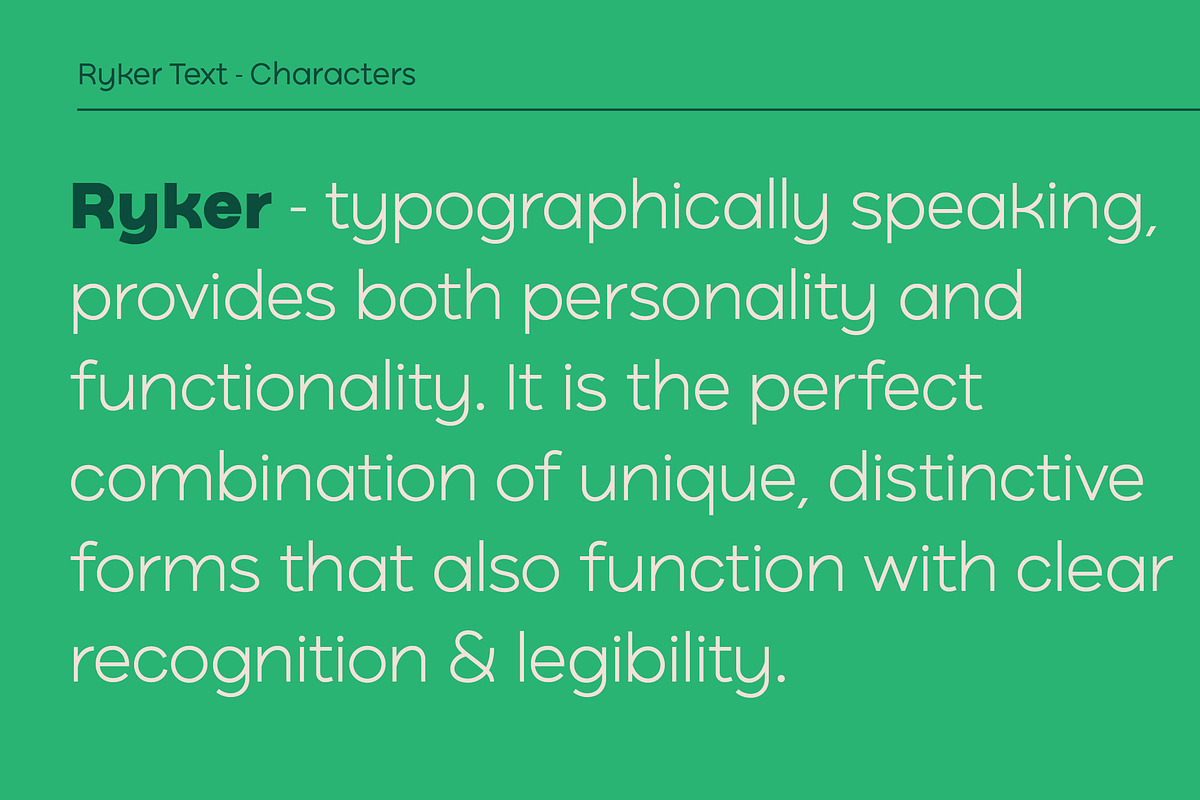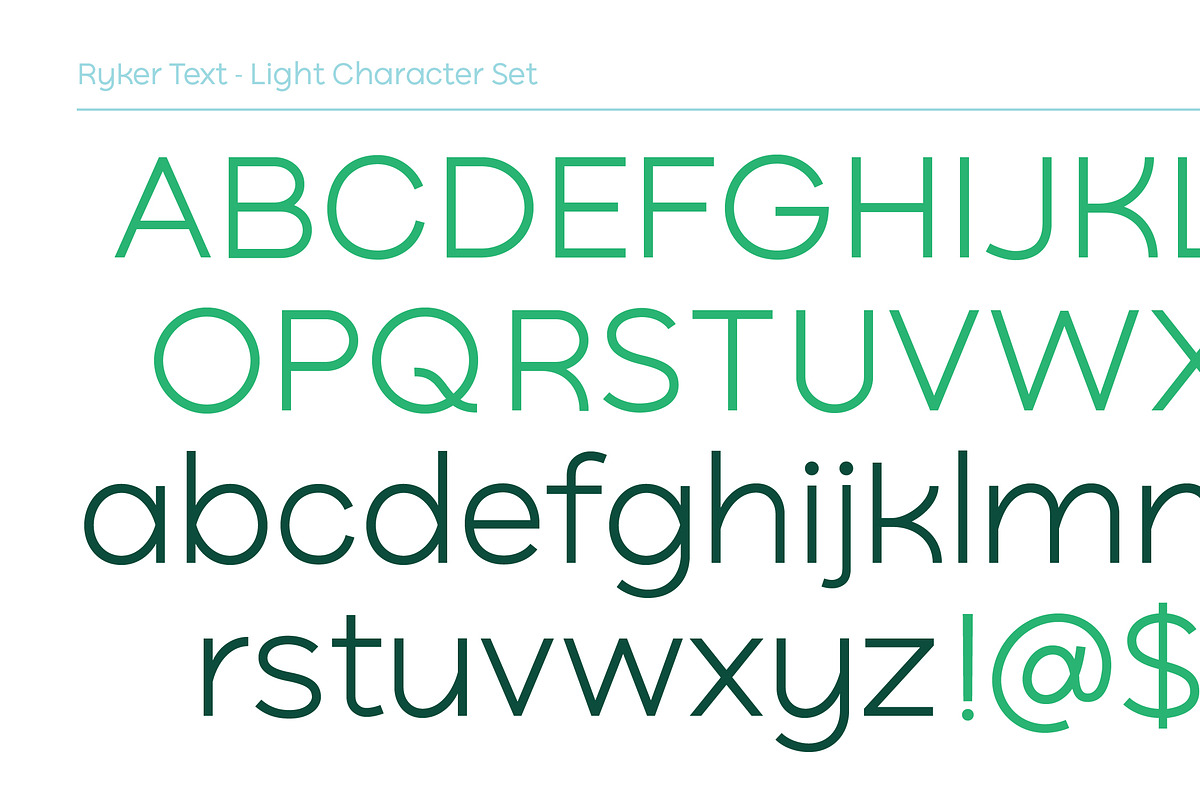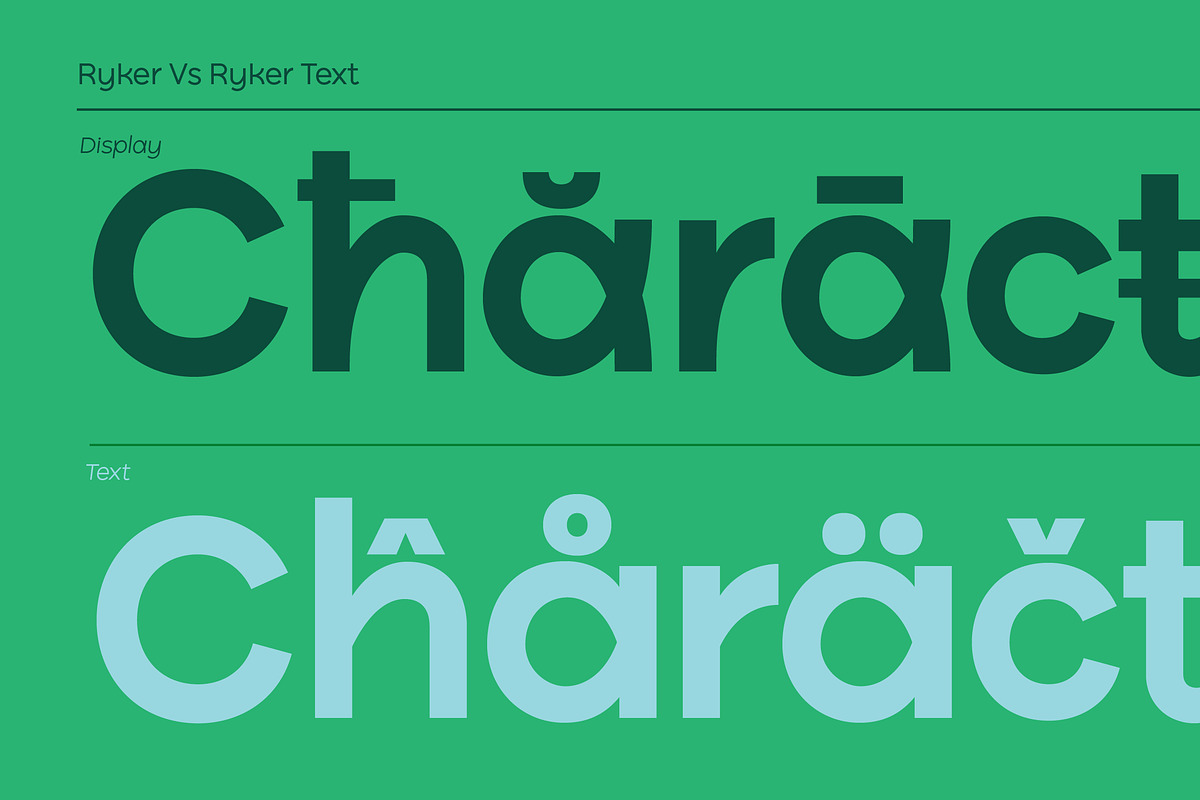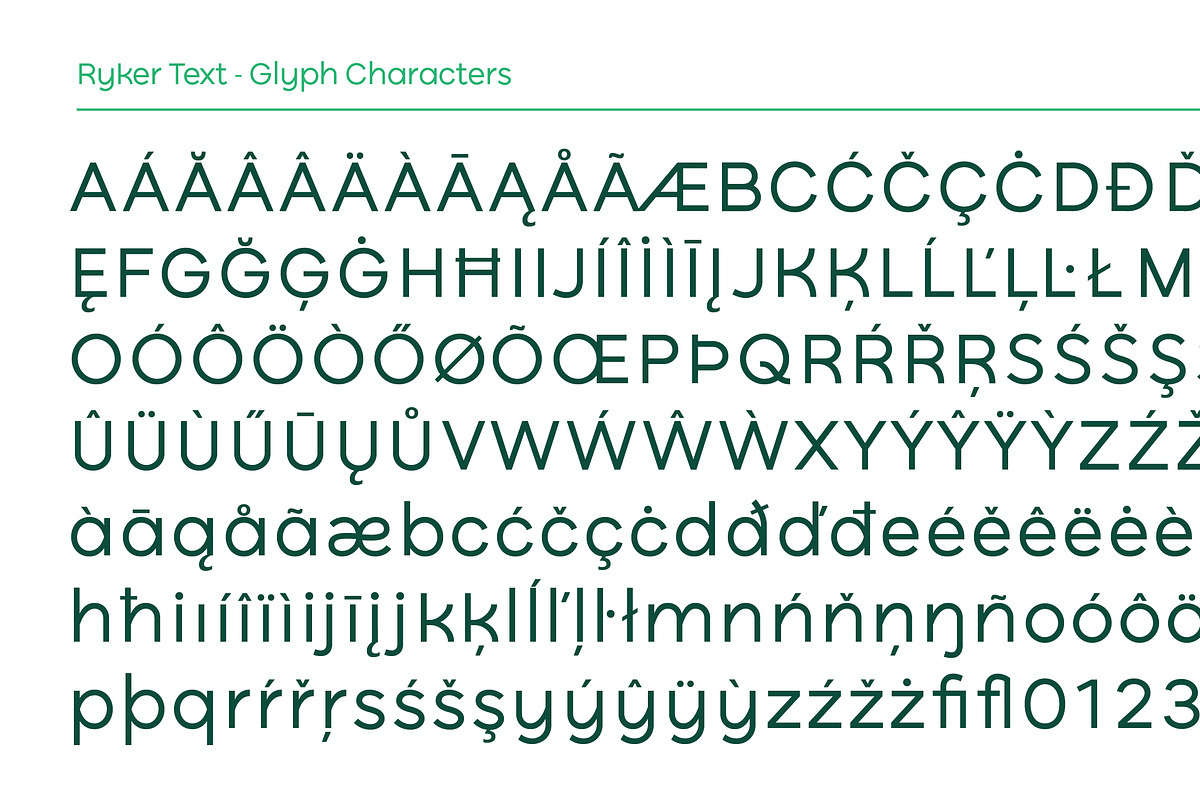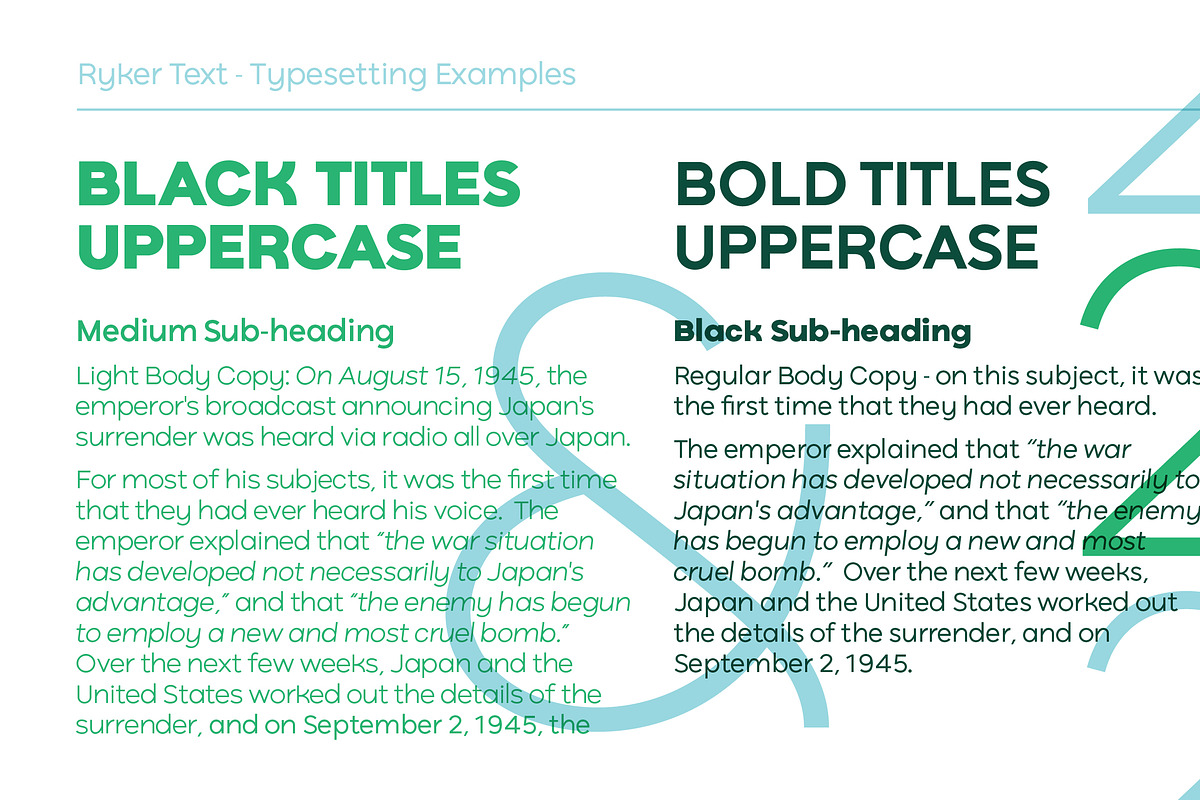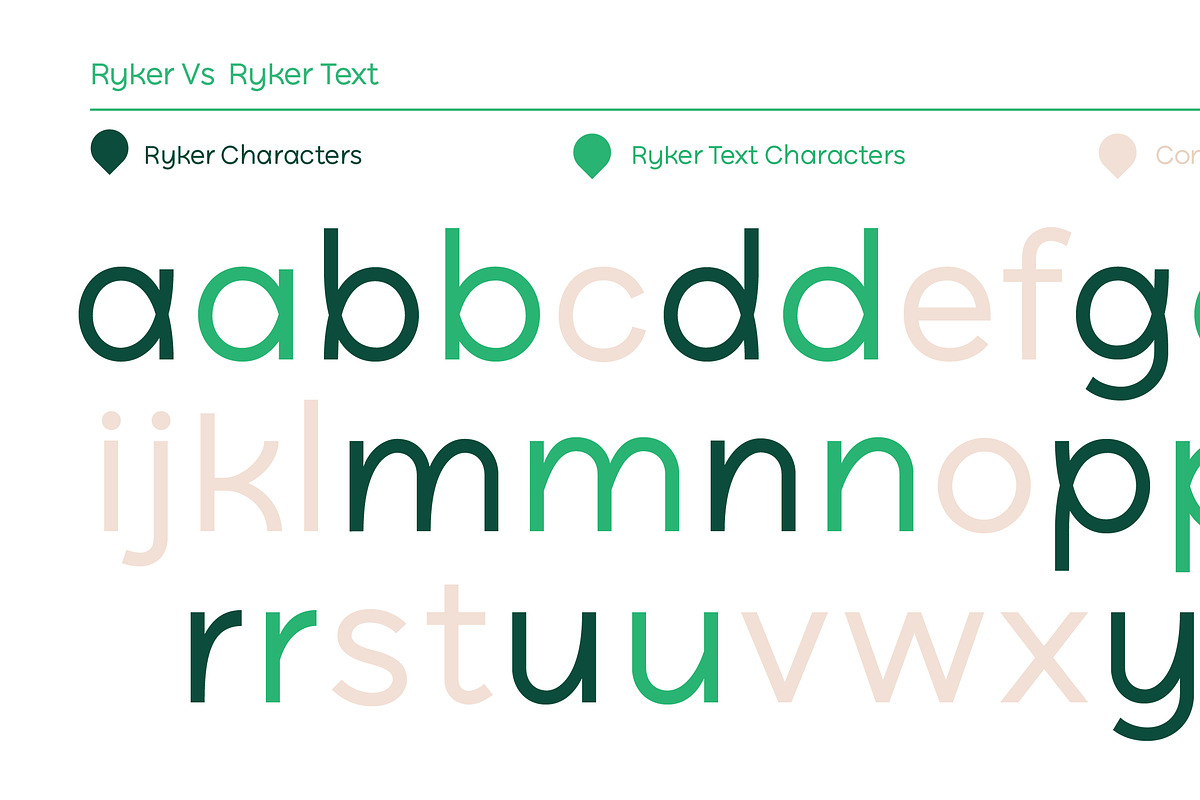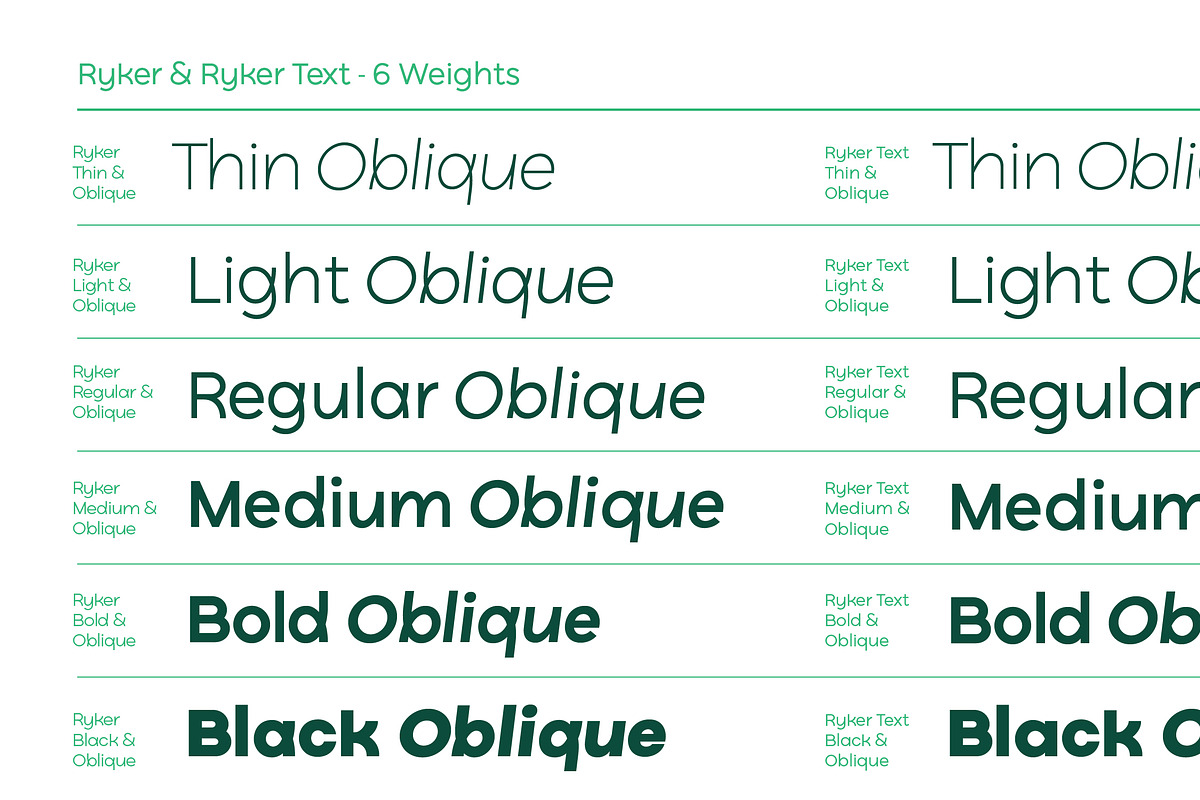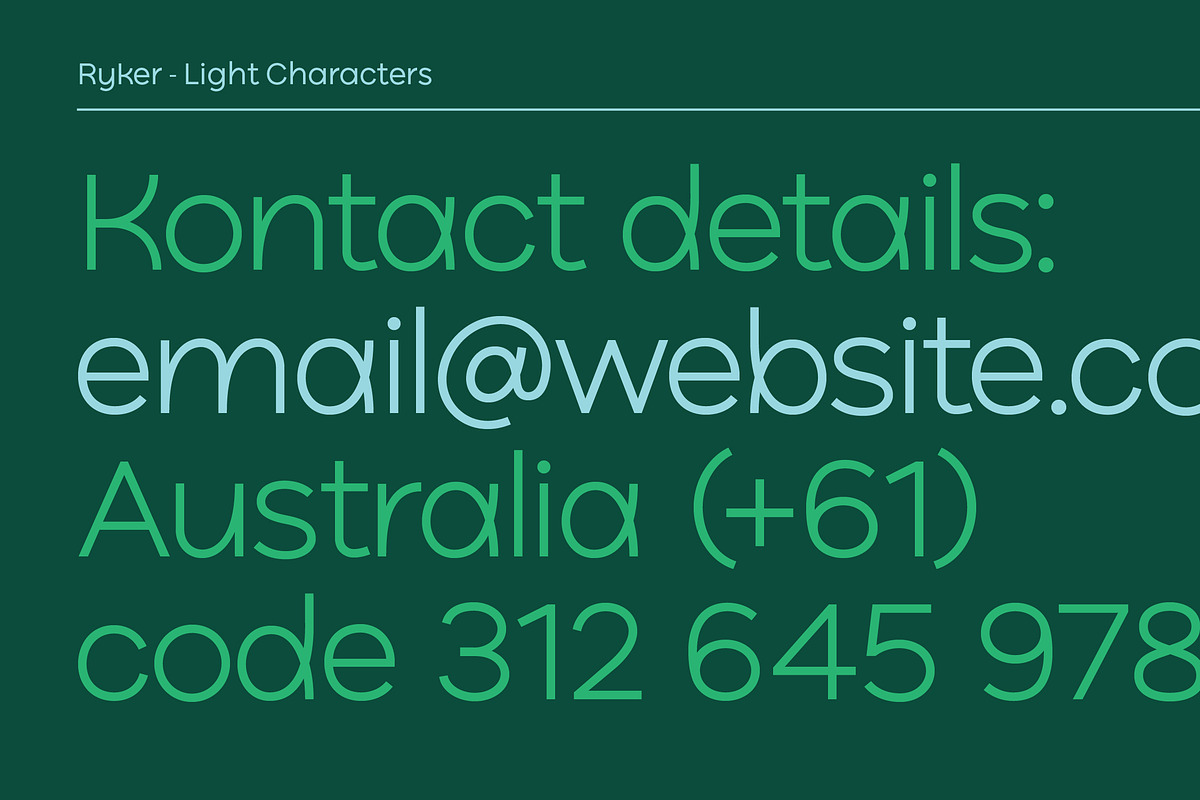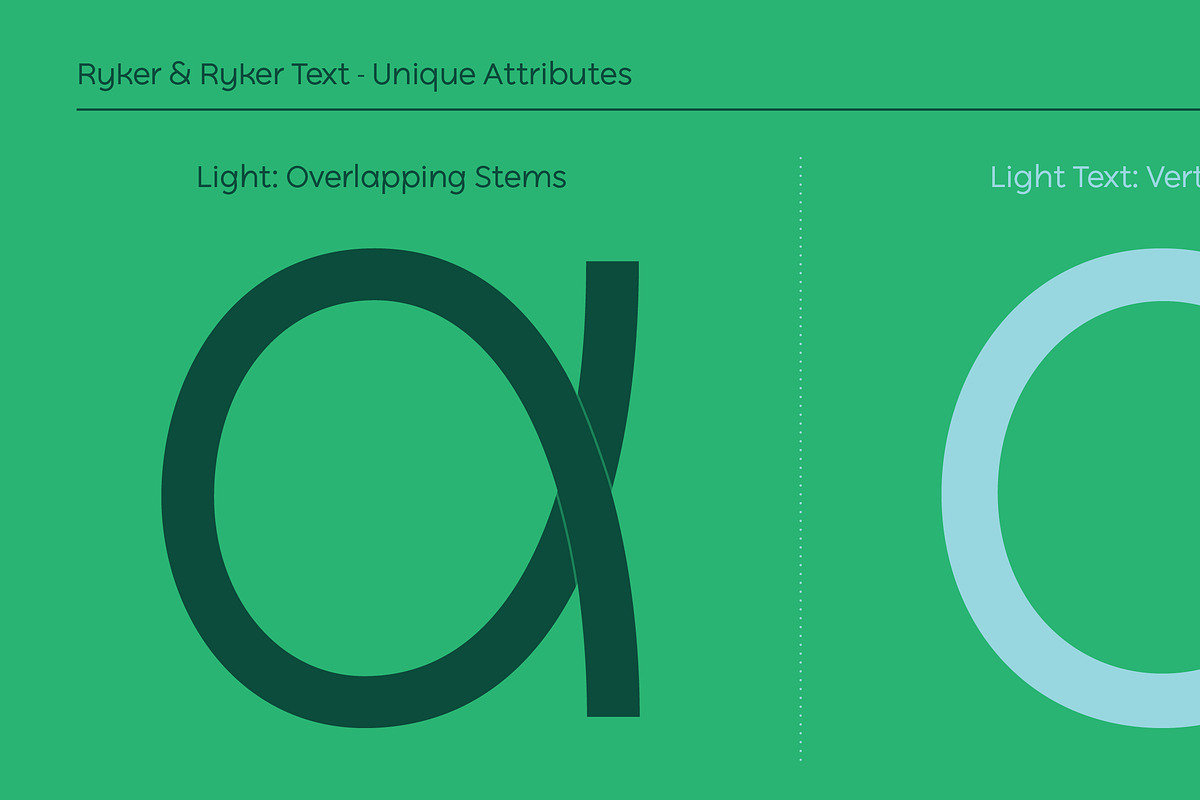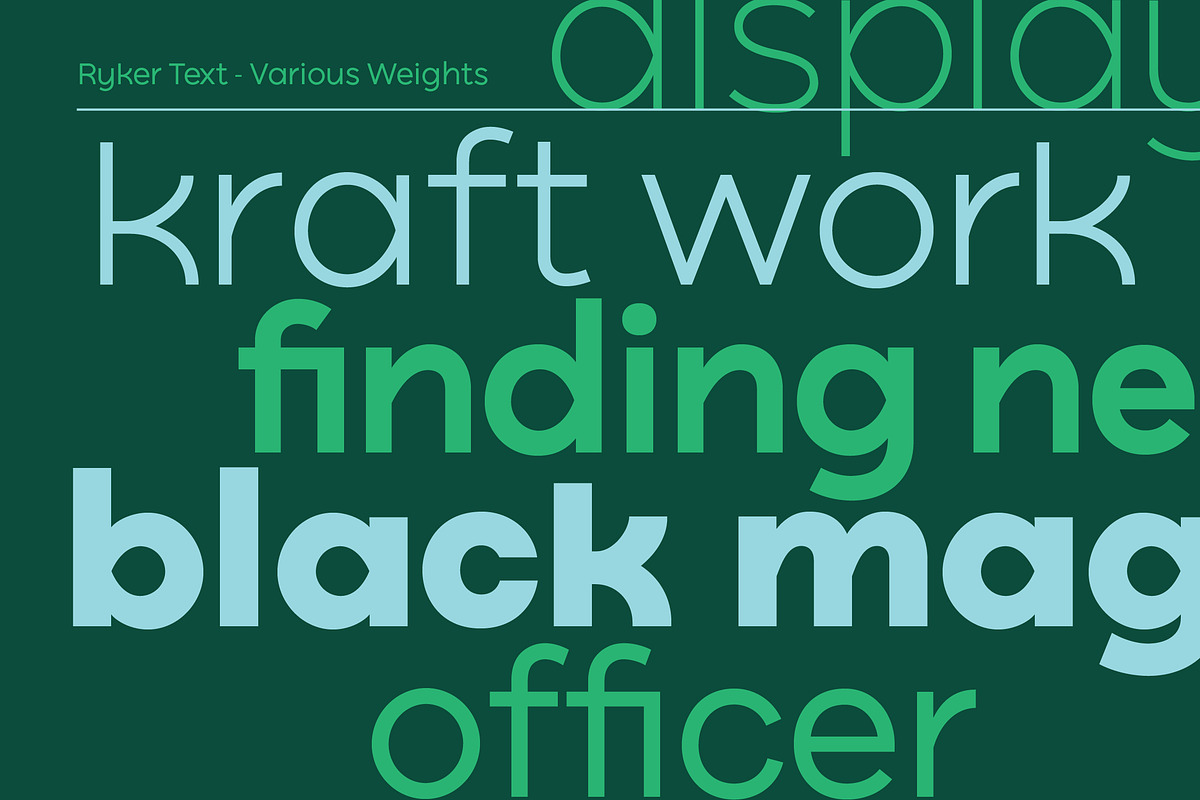
Ryker
Ryker is a humanist sans serif font designed for versatility. It balances unique and distinctive forms with clear legibility, making it suitable for a wide range of applications, including publications, packaging, and corporate branding.